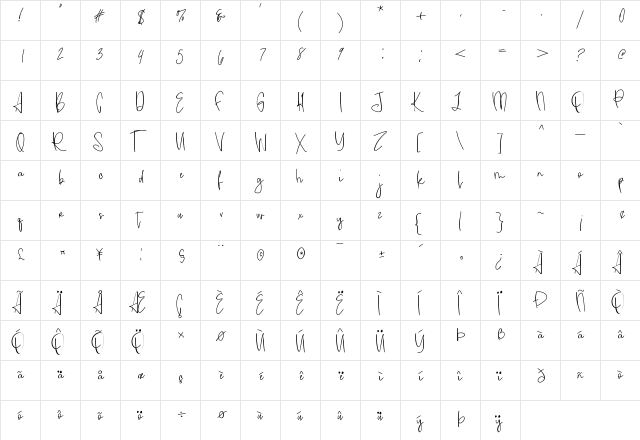
aquamarine Medium
Design Context for aquamarine Typeface
aquamarine is a composed and adaptable typeface that performs quietly and consistently across a wide range of design contexts.